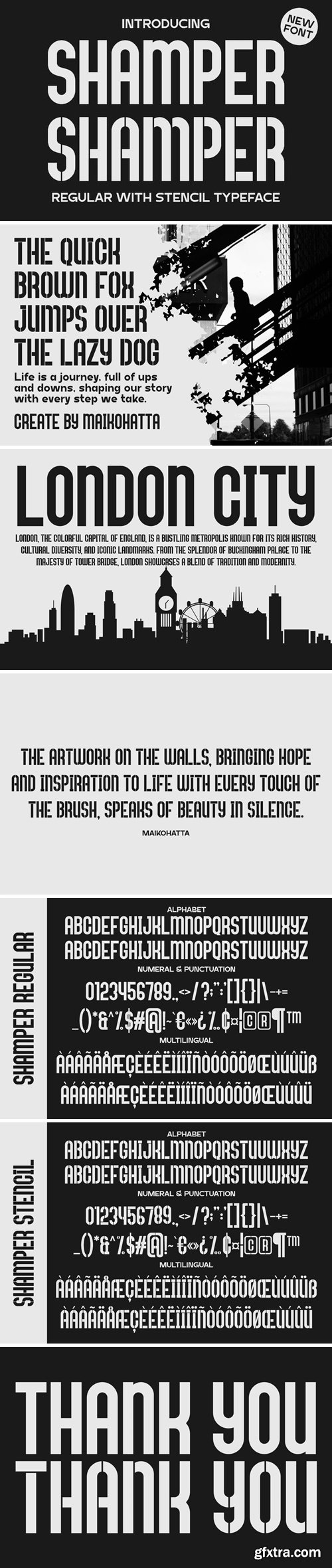
沙姆普 - 带有模板字型的常规字体
This font has two different but related styles. Regular sans serif has the characteristic of straight lines without additional decoration, while stencil sans serif has the characteristic that there are holes or "cuts" in each letter and symbol. Regular sans serif fonts are suitable for digital designs and plain text, while stencil sans serif fonts are better suited for bold displays such as military designs, highway signs, street art, or industrial design projects.